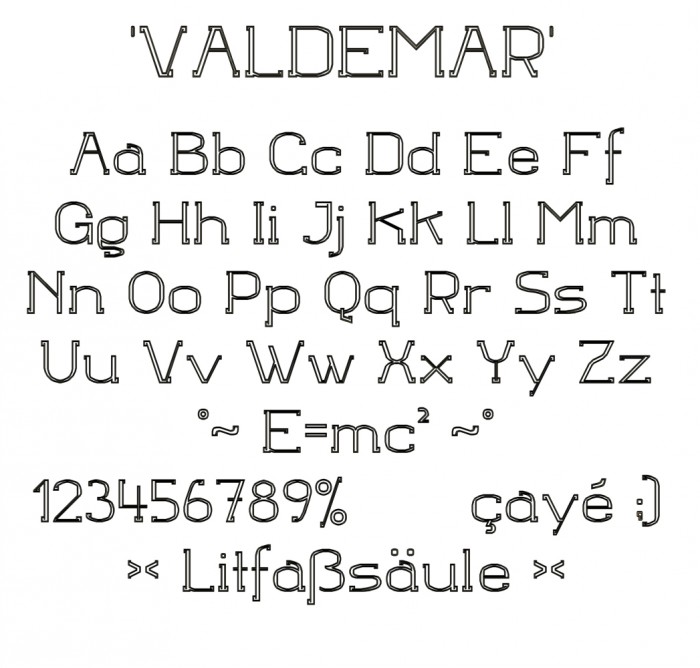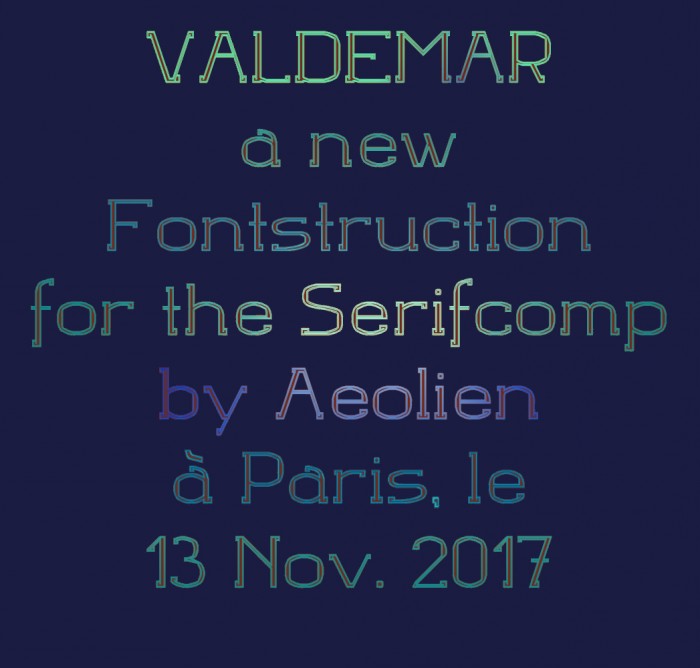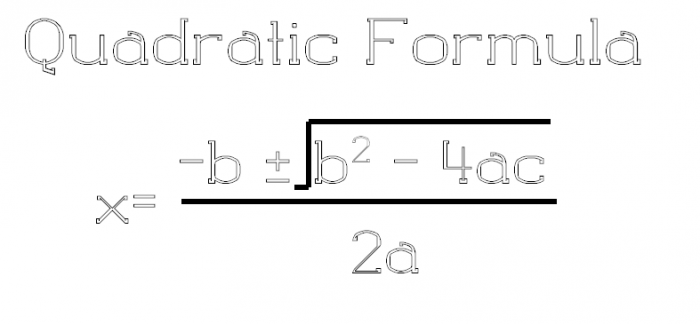
Ideal for colouring in so it's a great 'tool' for letter work in playgroup and primary school with the added benefit of introducing the idea of serifs which links into historical lettering systems.
When making AE and OE, you forgot to remove any overlaps...
xBox, I didn't. But I'll ask a playgroup teacher if overlaps make it hard or easy to teach (and for kids to remember) how to make these strange letters. The overlaps were complicated to add as they're part of how eyes see and survey letters.
Thought about superscripts and subscripts for science, math, etc.
Or { and } for lists
xBox, no, I don't think of that here. No developmental psychologist will demand that a kid aged 2 - 8 years applies that kind of glyph. Your school made you to write and use them before you were 8? '.'
Are all your letters below or at 48 bricks height?
does arial have a spur or tail on eth??
Aside from J (that's me being picky, because I prefer the original J [ya], which descends, as it is an I with a tail), I love this.
@xXx Xbox Gamer, I'm not going to strictly police the 48 bricks height thing. It’s an arbritrary guideline to try and stop people from getting over-ambitious and creating things that won’t save or download. – that’s the original thinking behind the “rule”. If someone wins the competition with, for example, 52 brick-high glyphs, so be it.
@meek Have you thought of more unicode sets??
The Quadratic Formula
TCWhite: thank you:) a descending alternate J is on ¤. xBox: UC are 48px high.
Did you make the C upside-down or was that intentional?
@xXx XBox Gamer - Is it "upside-down" ? It looks consistent with the design of the other glyphs where there is a thin serif on top and a thicker serif on the bottom...
xBox, the C isn't upside-down. It's like Goatmeal explained: narrow upright serifs as part of the UC bases are always taller than at the top line. BTW, your sampler looks intriguing :)
The 7 of ignorance, cowardice, vindictiveness? Now explain the 7 and help me remove errors. I made this for a special group and they, not you, decide what they need. Your duty is to respect that and them.
Lou? A 7 isn't constructive without explaining problems in need of change. If 7 = "uninteresting": pardon? We mightn't grasp fonts' style and reason, but accept those who wanted it; do let's explain/assess font qualities.
Adjusted the overlap on Œ, the new design shows more clearly its construction when handwriting. Also changed some kerning.